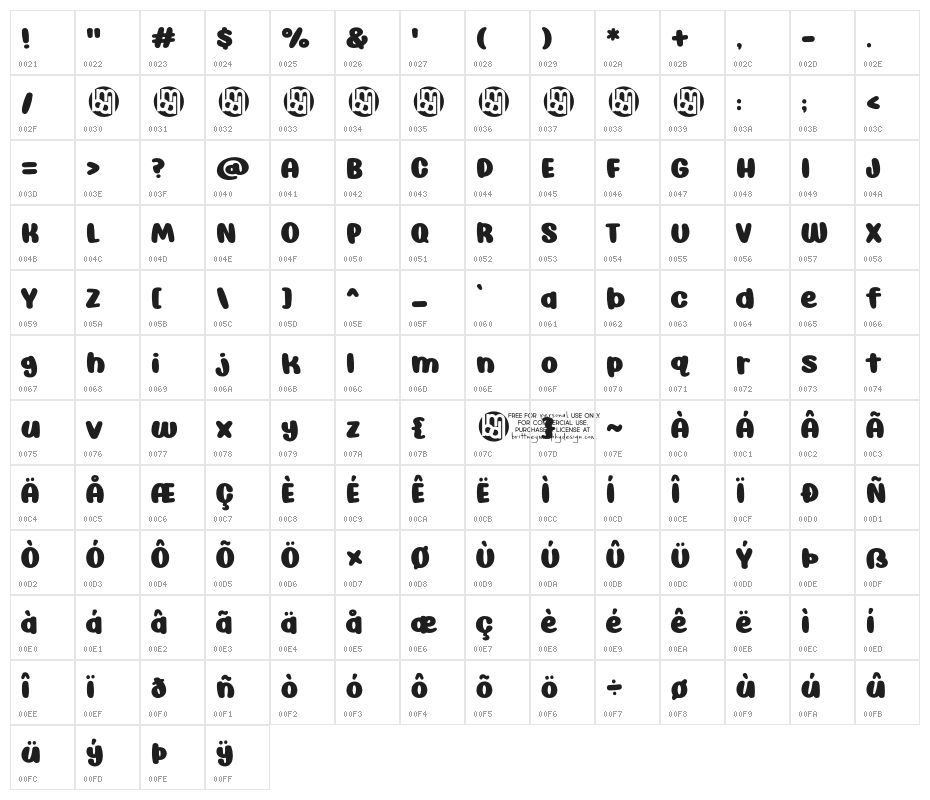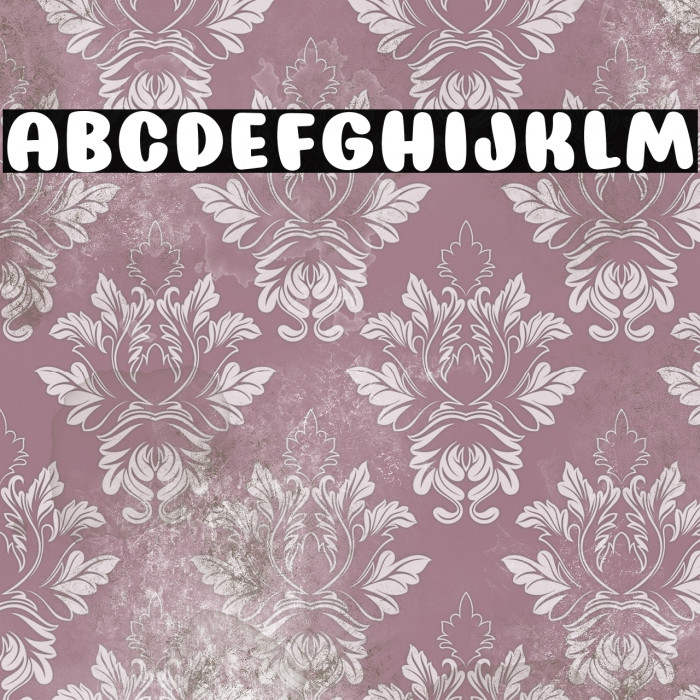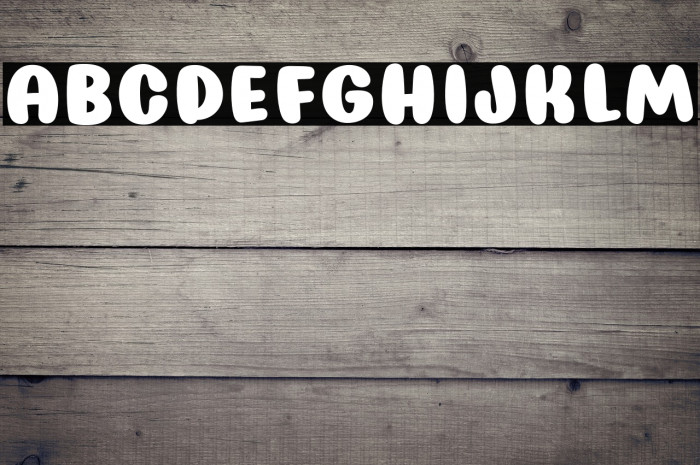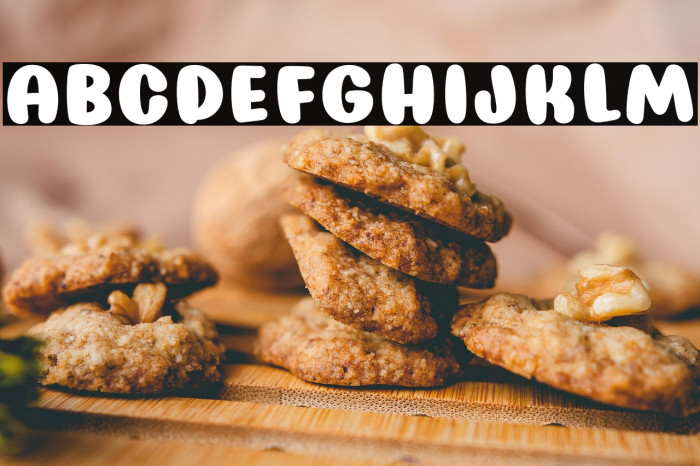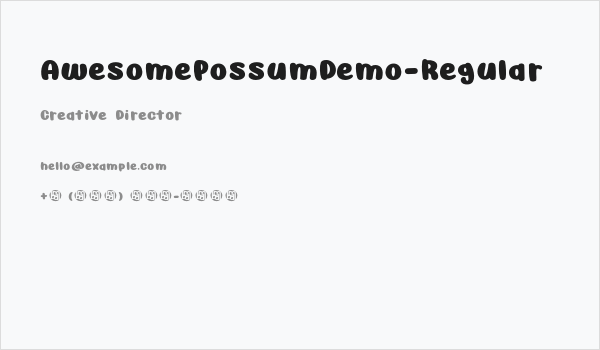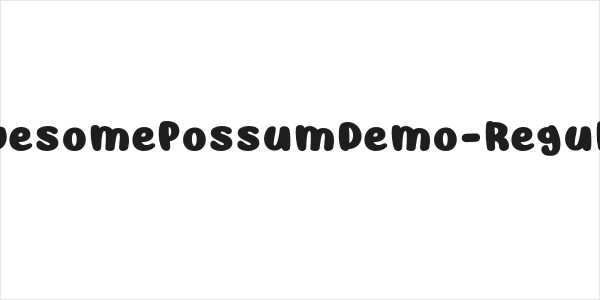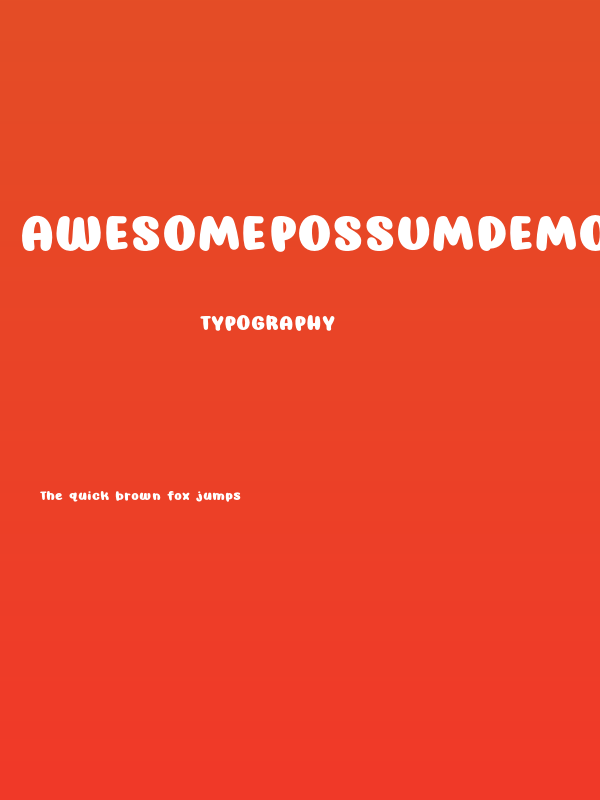
AwesomePossumDemo-Regular Font
AwesomePossumDemo-Regular Description
This playful and bold font features rounded, thick characters that convey a sense of fun and whimsy. The letters are uniformly bold with a consistent stroke width, giving them a chunky appearance. The rounded edges and lack of sharp angles contribute to its friendly and approachable style. The font includes both uppercase and lowercase letters, numbers, and a variety of special characters, making it versatile for different design needs. Its unique style is characterized by a slightly irregular shape, adding to its charm and making it stand out in creative projects.
Overall StylePlayful
Proposed ProjectsIdeal for children's books, playful branding, party invitations, and creative posters.